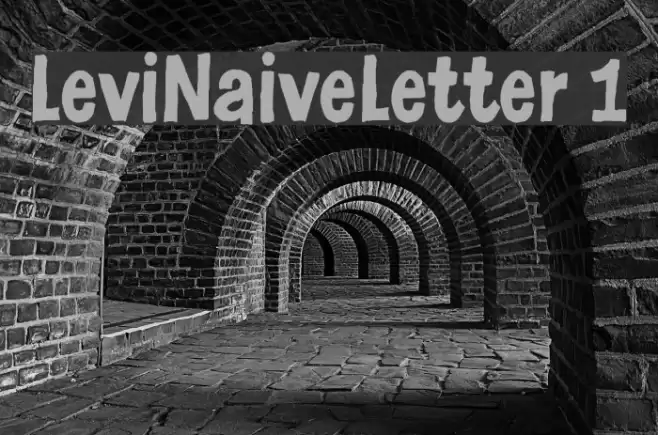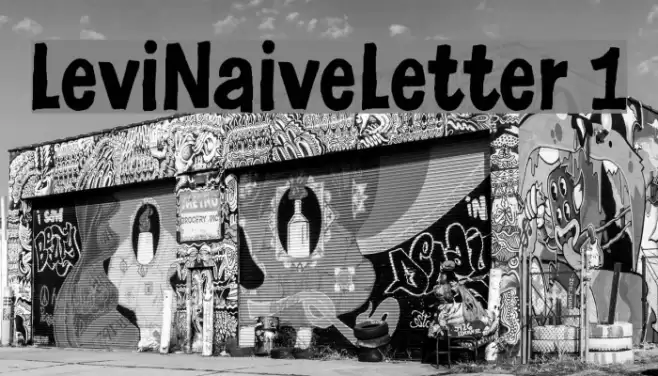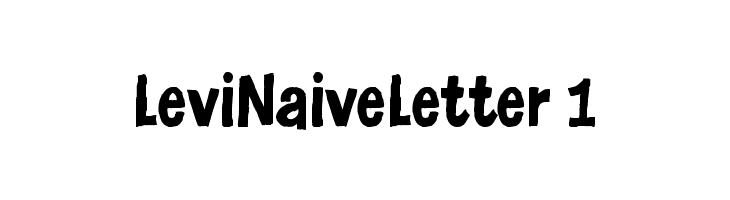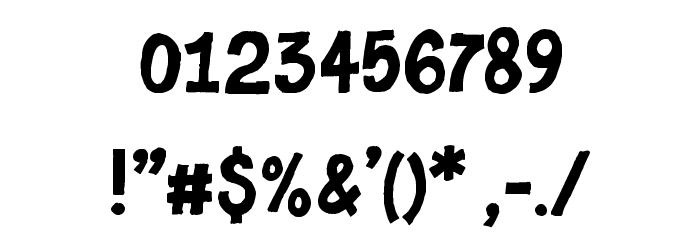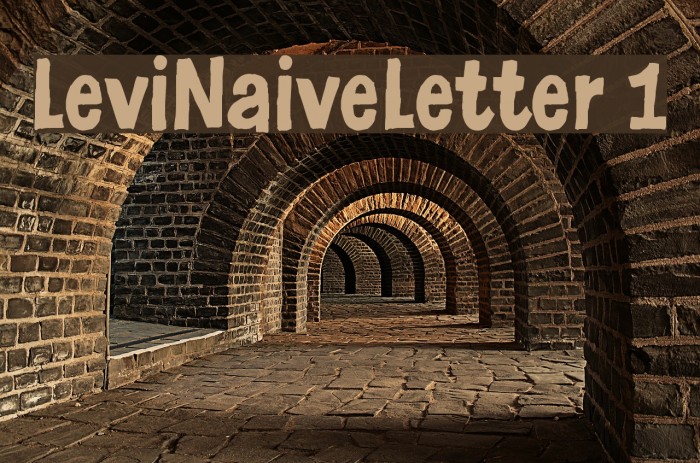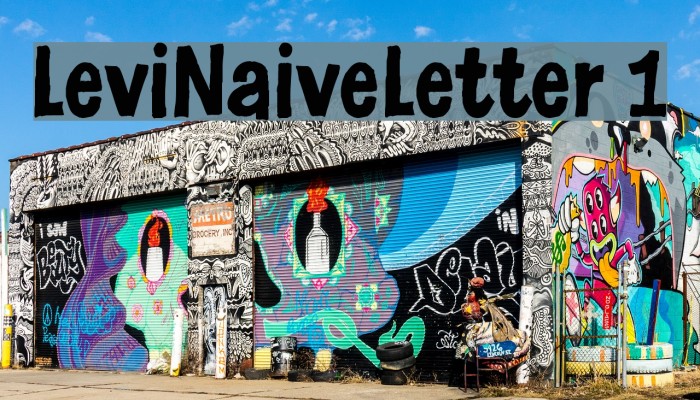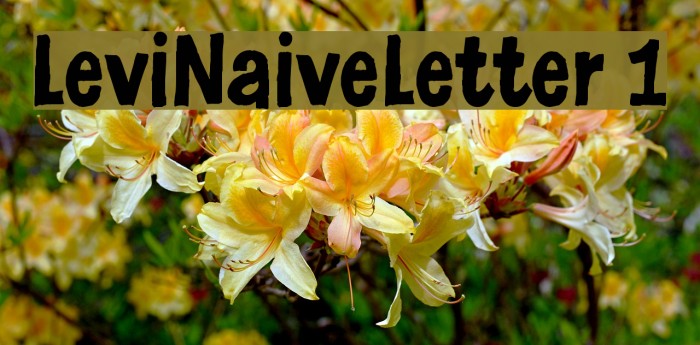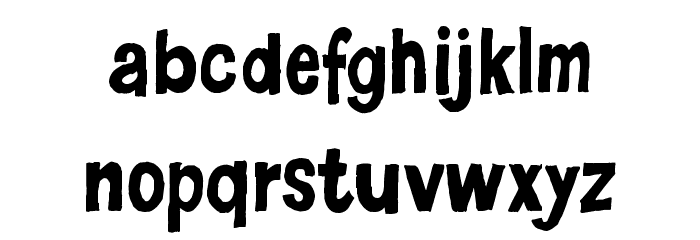
LeviNaiveLetter 1 Font
LeviNaiveLetter 1 Description
This font features a playful and slightly irregular style, giving it a hand-drawn appearance. The characters are bold and have a somewhat uneven baseline, contributing to a casual and informal look. The strokes are thick and consistent, providing a strong visual impact. The uppercase and lowercase letters maintain a cohesive style, while the numerals and special characters complement the overall design. This font is suitable for projects that require a fun and approachable aesthetic.
A playful, hand-drawn style font with bold, irregular characters from Crazy fonts.
- Proposed Projects: Ideal for children's books, casual posters, greeting cards, and playful branding.
- Overall Style: Casual